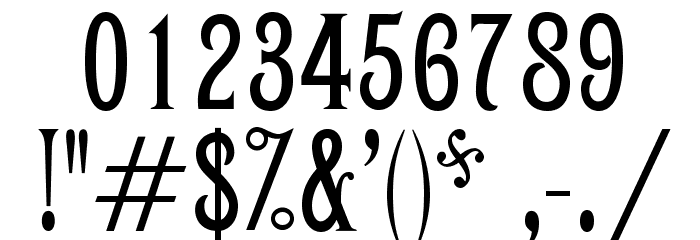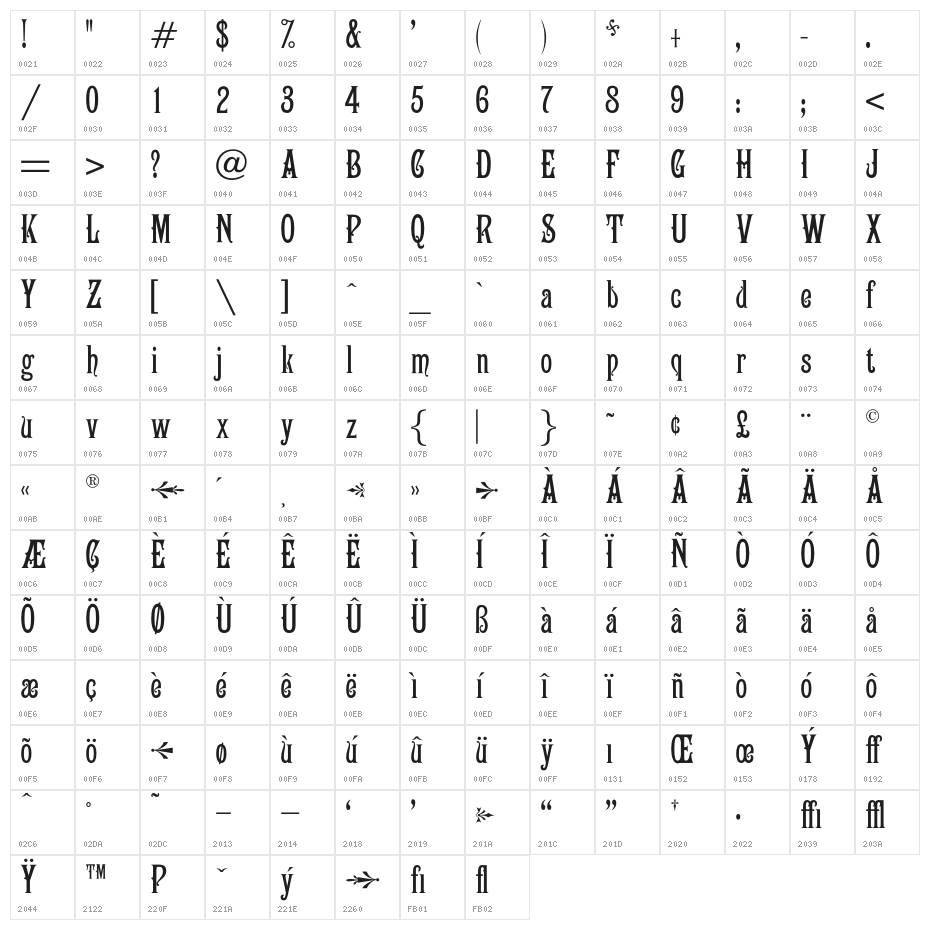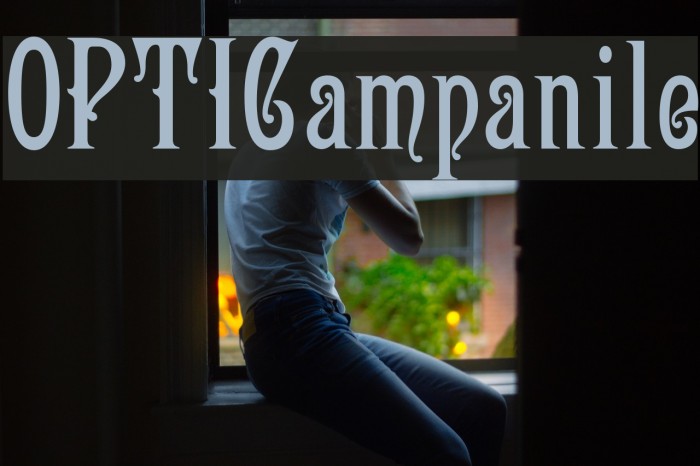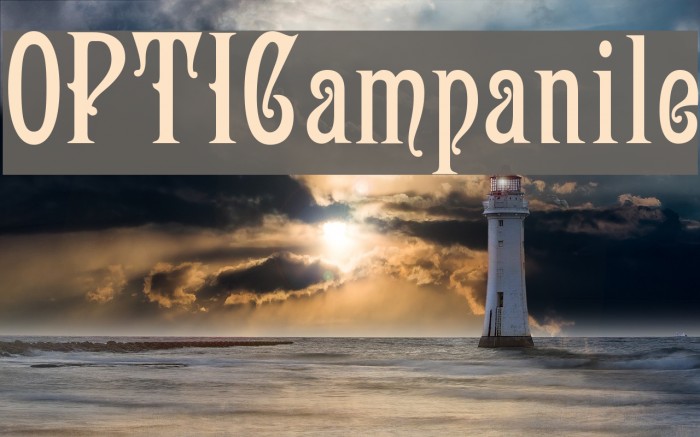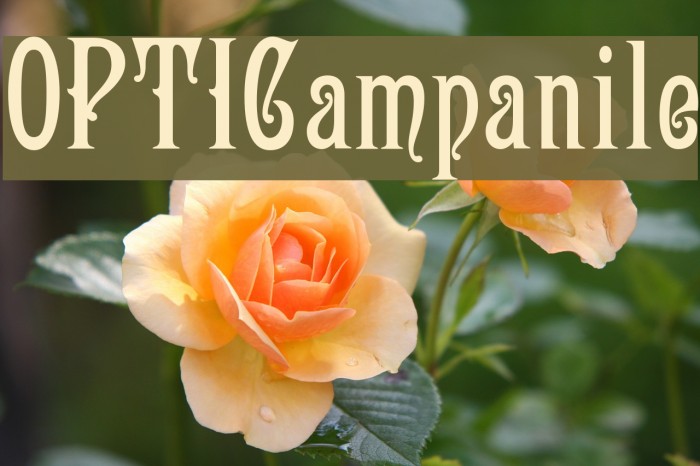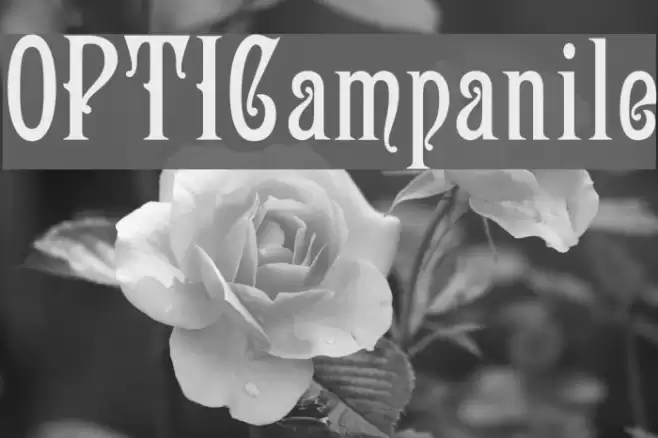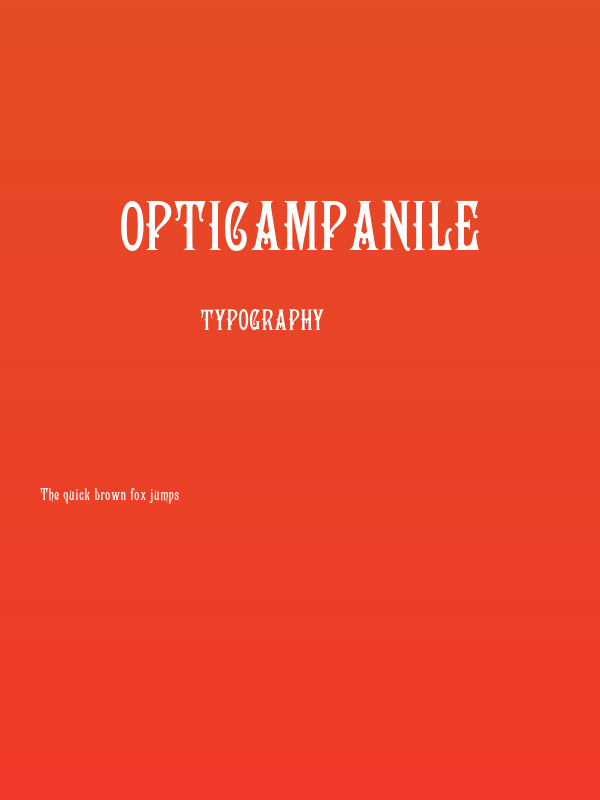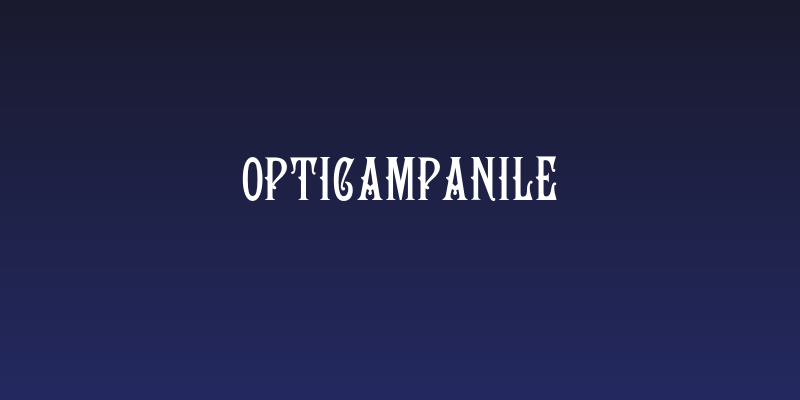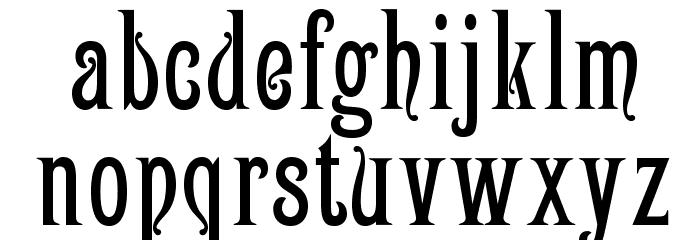
OPTICampanile Font
OPTICampanile Description
This font features a distinctive and ornate style, characterized by its decorative elements and unique flair. The uppercase letters are bold and striking, with intricate details that give them a vintage and artistic appearance. The lowercase letters maintain a consistent style, offering a harmonious blend with the uppercase. Numbers are clear and legible, yet they retain the decorative theme. Special characters are creatively designed, adding to the overall aesthetic. The font's design is reminiscent of classic signage or poster typography, making it ideal for projects that require a touch of elegance and sophistication.
| Proposed Projects | Ideal for vintage-themed posters, artistic signage, branding, and decorative invitations. |